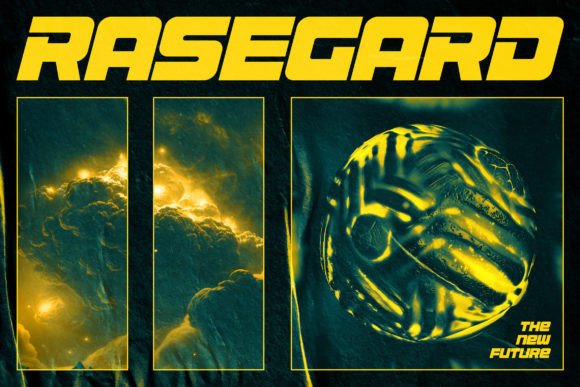
Step into the future of typography with Rasegard Font, the ultimate display font that will revolutionize your designs. Prepare to be mesmerized as this meticulously crafted masterpiece takes you on a journey through the realms of innovation and creativity. Rasegard is not just a font; it's an experience that will leave your audience captivated.
Unleash the power of Rasegard and witness the transformation of your designs. Its sleek and dynamic letterforms will elevate your creations to a new level of sophistication, turning heads and leaving an unforgettable impression. Whether you're crafting futuristic design concepts, creating captivating game or esport logos, designing immersive streamer overlays, or seeking to make a bold statement with your posters, Rasegard is your ultimate weapon of choice.
Immerse yourself in the boundless possibilities that Rasegard offers. Its versatility knows no bounds, allowing you to effortlessly adapt it to a myriad of projects. From cutting-edge logos that exude modernity to striking headlines that command attention, Rasegard seamlessly blends form and function, delivering results that are both aesthetically pleasing and impactful.
With Rasegard, you'll unlock a world of creative potential. Its futuristic charm effortlessly captures the essence of innovation, propelling your designs into the future. Let your imagination run wild as you explore the limitless possibilities that await. Rasegard is more than just a font; it's an invitation to embark on a journey of creativity and innovation. Embrace the future of typography and redefine the boundaries of design excellence.
Don't settle for ordinary fonts that blend into the background. Choose Rasegard and let your designs shine with a brilliance that will leave your audience awestruck. Experience the power of typography that transcends the mundane and propels you into the realm of the extraordinary.